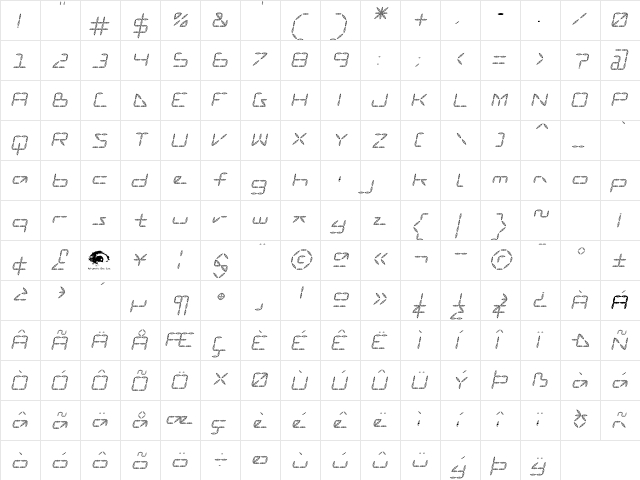
Vanguard III AOE Oblique
Design Context for Vanguard III AOE Typeface
Vanguard III AOE takes a measured approach to typography — its balanced proportions and neutral character make it a reliable workhorse for both digital and print work. The slanted form adds forward momentum and visual energy.
Pro Tip: Use Vanguard III AOE for emphasis, pull quotes, and subheadings where its slanted energy can add rhythm to the layout.